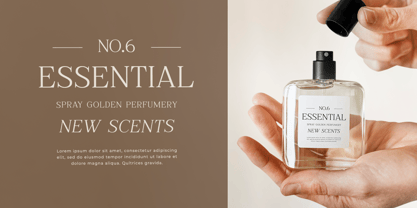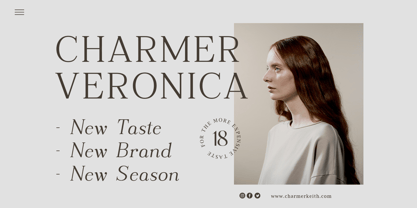
Matcha Facts
by Typefactory
The Matcha Facts Font Family was designed by Hilmius Akbar and published by Typefactory. Matcha Facts contains 2 styles and family package options. More about this family
Introducing "Matcha Facts" - a fresh font duo that combines modern elegance with playful charm, offering versatility and style for your designs.
With its sleek sans serif and handcrafted script, "Matcha Facts" brings a dynamic duo to your typographic toolbox, perfect for branding, packaging, social media, and more.
Embrace the creativity of "Matcha Facts" as it effortlessly enhances your designs with its unique blend of sophistication and whimsy.
Step into the world of font duos with "Matcha Facts" and unlock endless possibilities for your projects.
Designers: Hilmius Akbar
Foundry: Typefactory